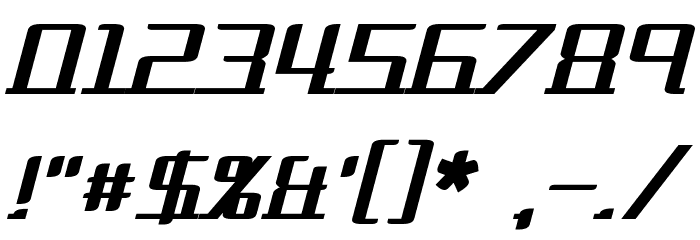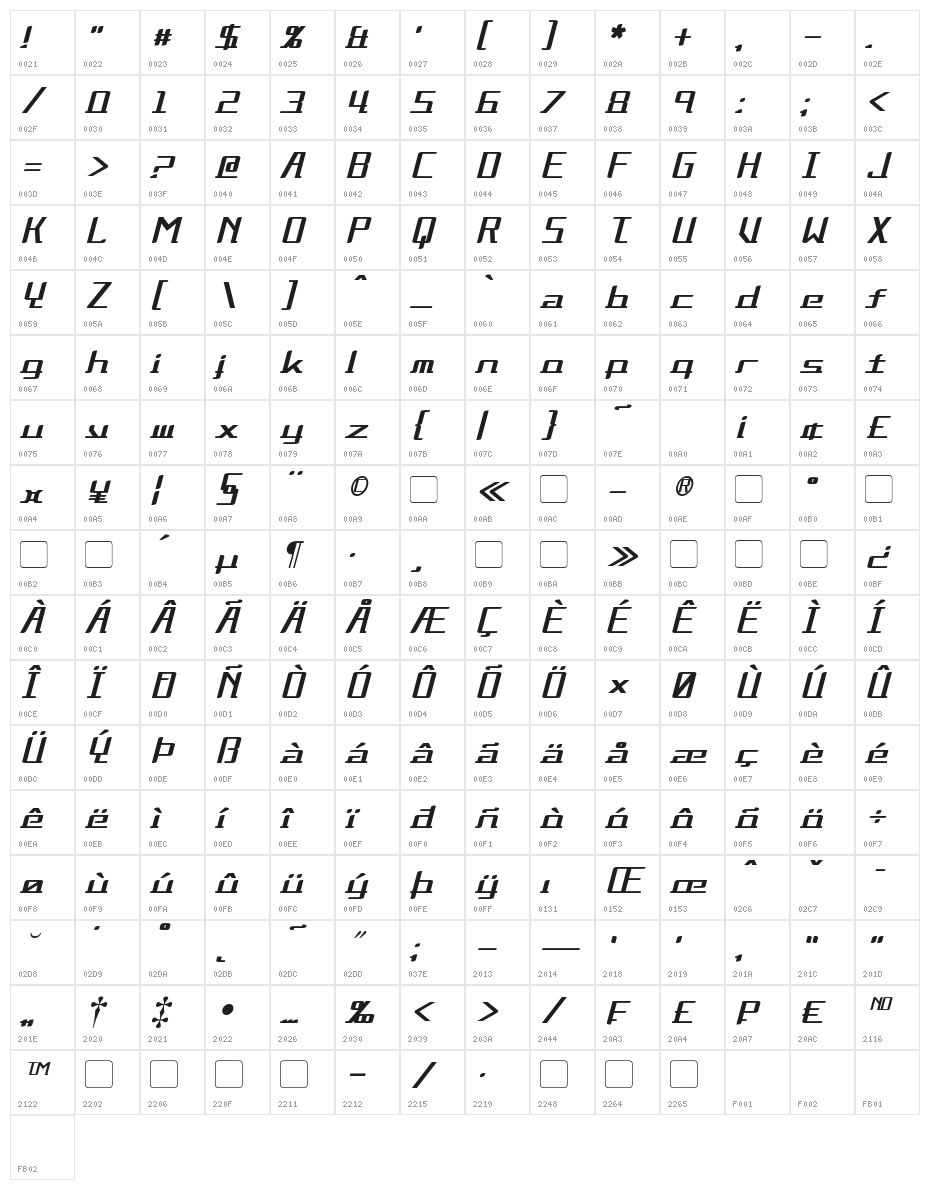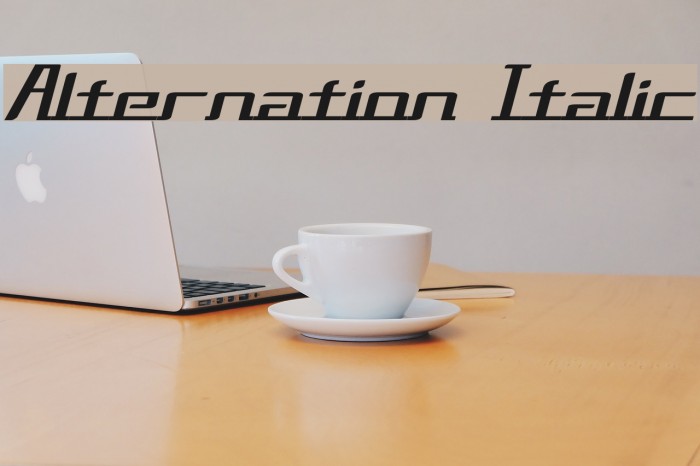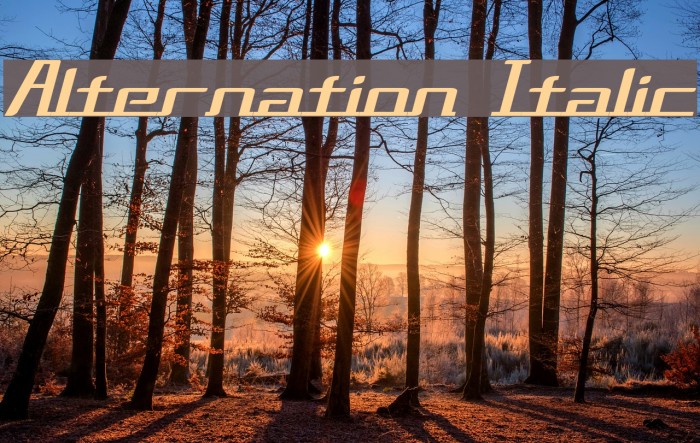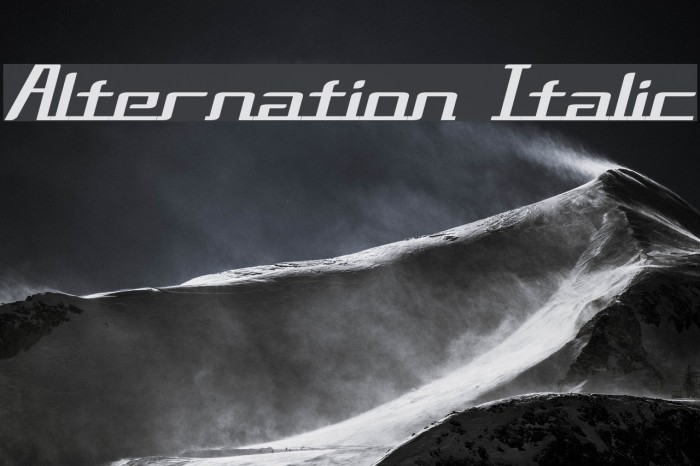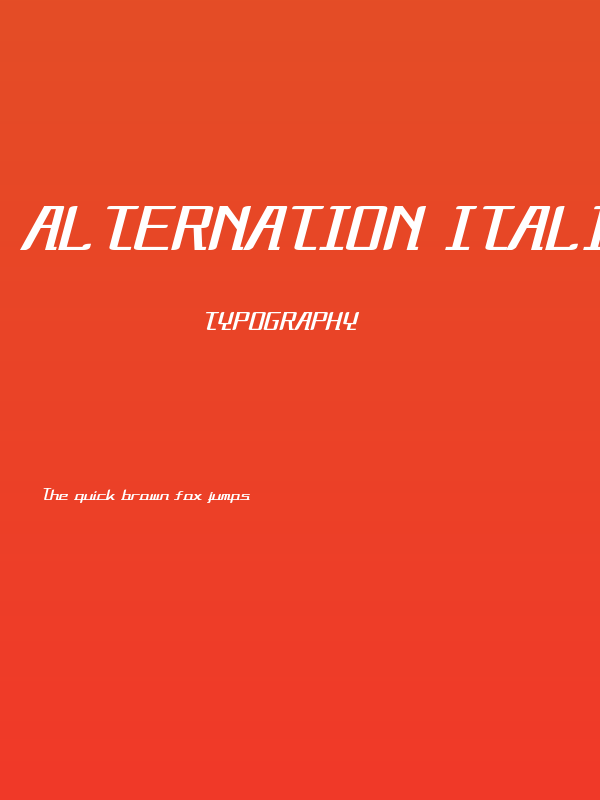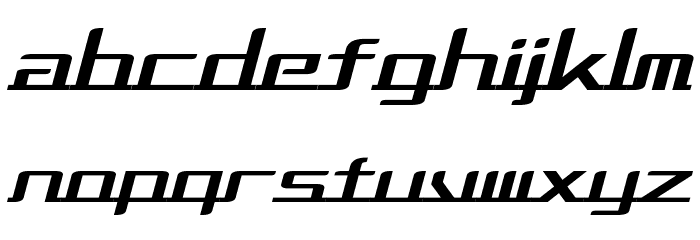
This font features a dynamic and modern design with a distinct italic slant, giving it a sense of motion and energy. The characters are constructed with sharp angles and clean lines, creating a futuristic and sleek appearance. The uppercase letters are bold and commanding, while the lowercase letters maintain a consistent style with slightly more subtle curves. The numerals are clear and legible, matching the overall aesthetic of the font. Special characters are uniquely styled, fitting seamlessly with the rest of the character set. This font's design is ideal for projects that require a contemporary and edgy look.
Overall StyleModern, Futuristic
Use CaseHeadlines, Logos, Branding
Proposed ProjectsIdeal for branding, advertising, sports team logos, and futuristic design projects.